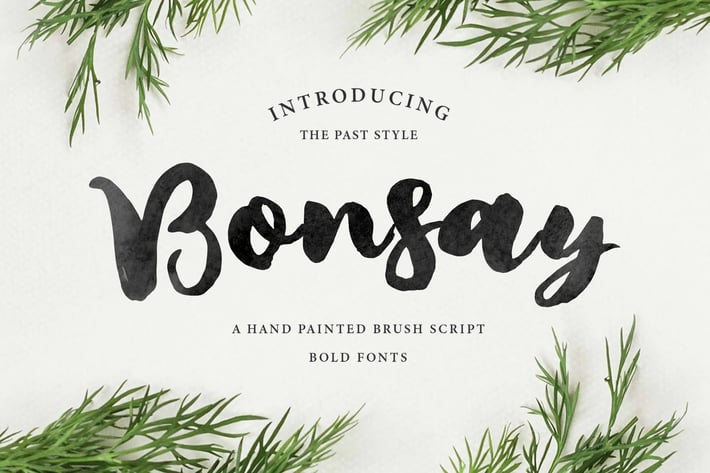
Bonsay Brush + Webfonts Fonts
Say hello to Bonsay!
A bold and beautiful brush lettered fonts.
Perfect for using in ink or watercolour based designs or on its own as bold hand brushed lettering!
Use it for websites, branding, weddings, social media, product design, stationery and advertising, etc | Bonsay is versatile enough to add that natural nuance to any project where you need that to look like real.